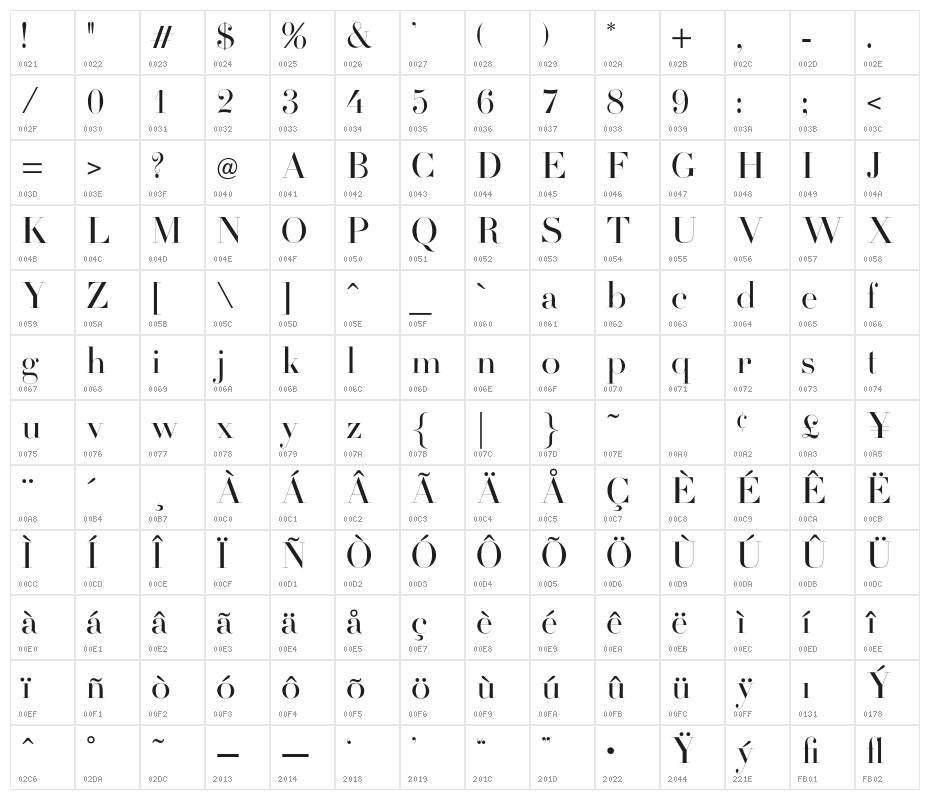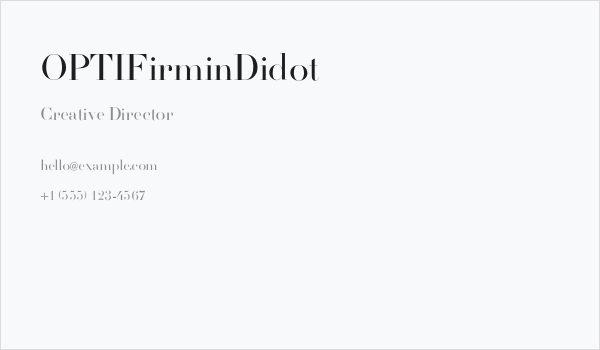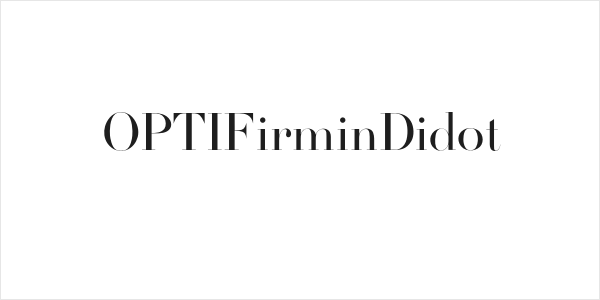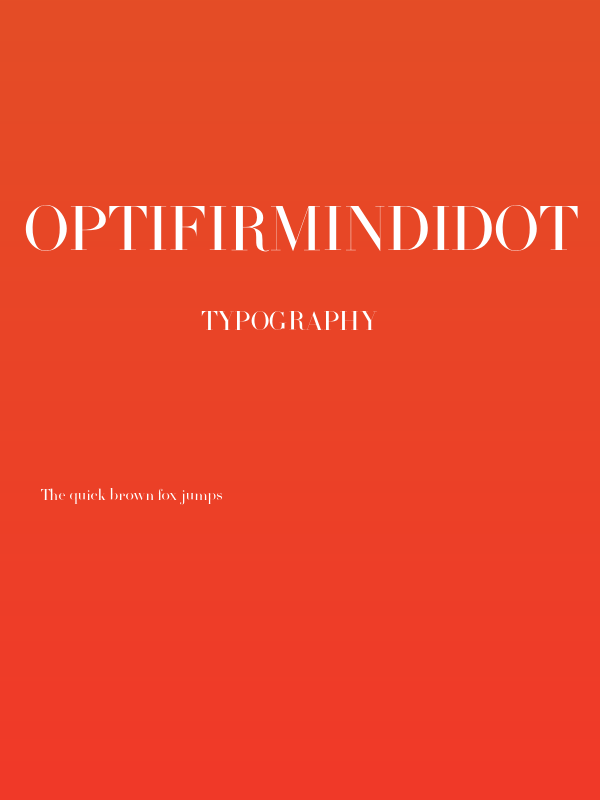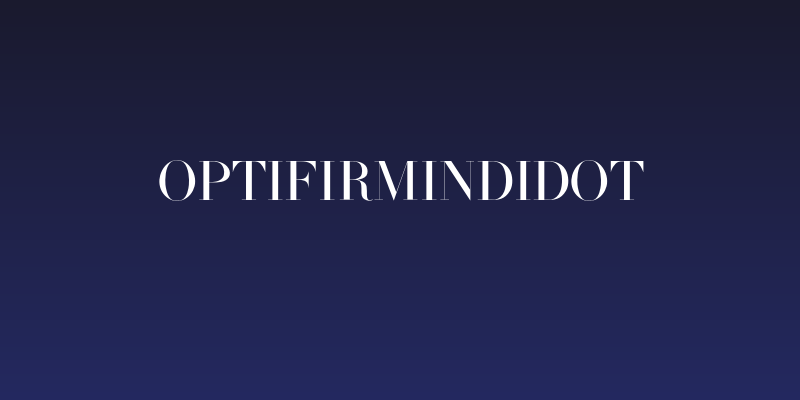
OPTIFirminDidot Font
OPTIFirminDidot Description
This font embodies the elegance and sophistication of classic serif typefaces, characterized by its high contrast between thick and thin strokes. The serifs are finely crafted, adding a touch of refinement to each character. The uppercase letters are stately and commanding, while the lowercase letters maintain a graceful flow. The numerals are distinct and well-balanced, complementing the overall aesthetic. Special characters are designed with the same attention to detail, ensuring consistency throughout. This font is ideal for projects that require a touch of class and tradition.
Overall StyleClassic
Proposed ProjectsIdeal for luxury branding, editorial design, wedding invitations, and high-end product packaging.